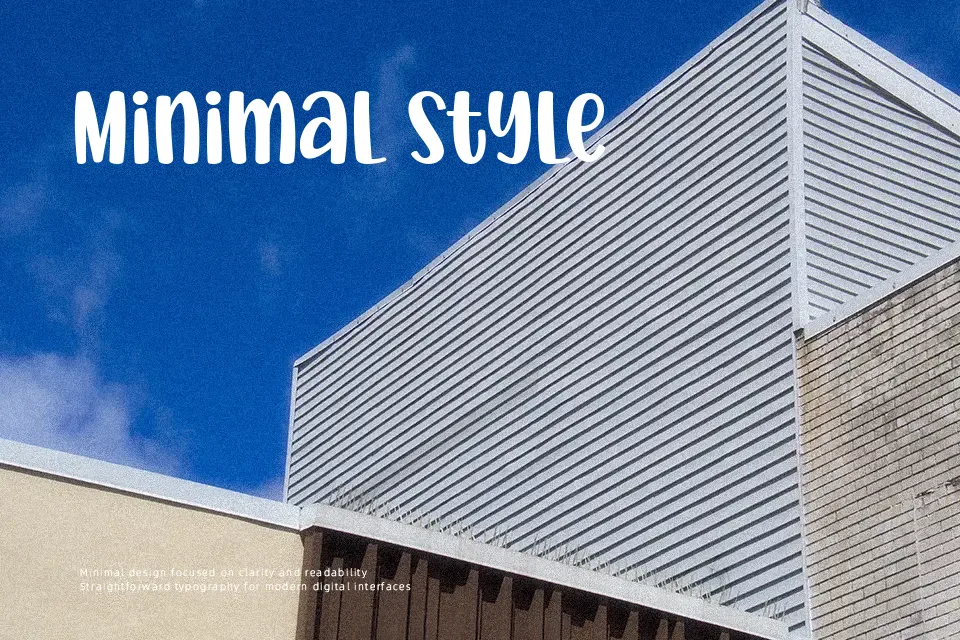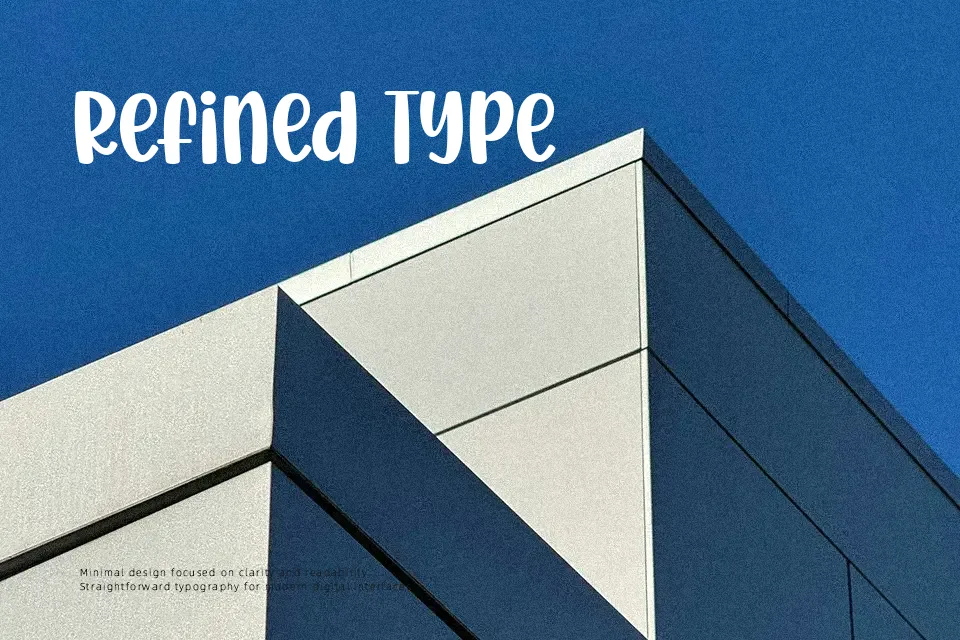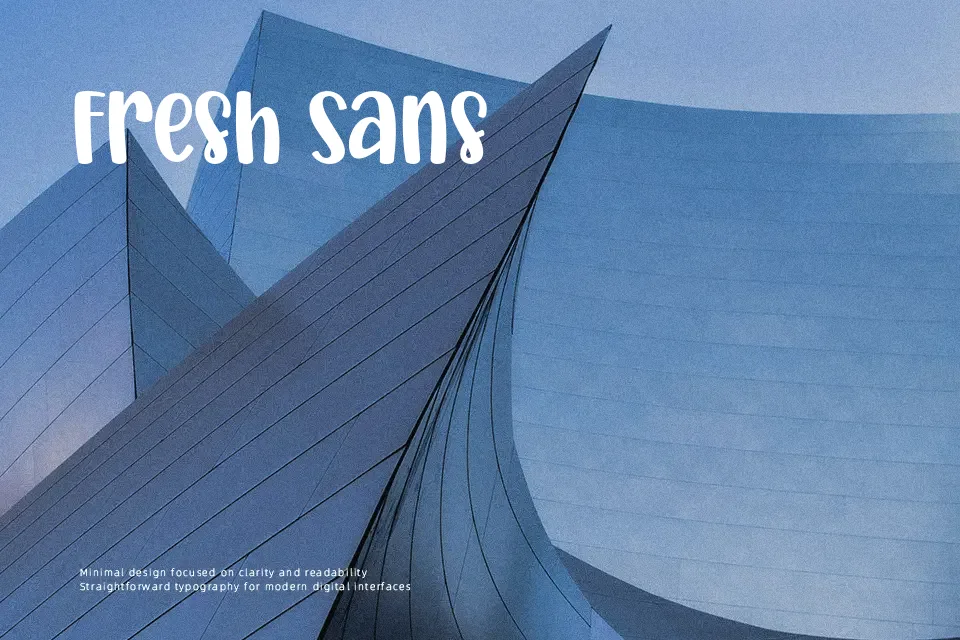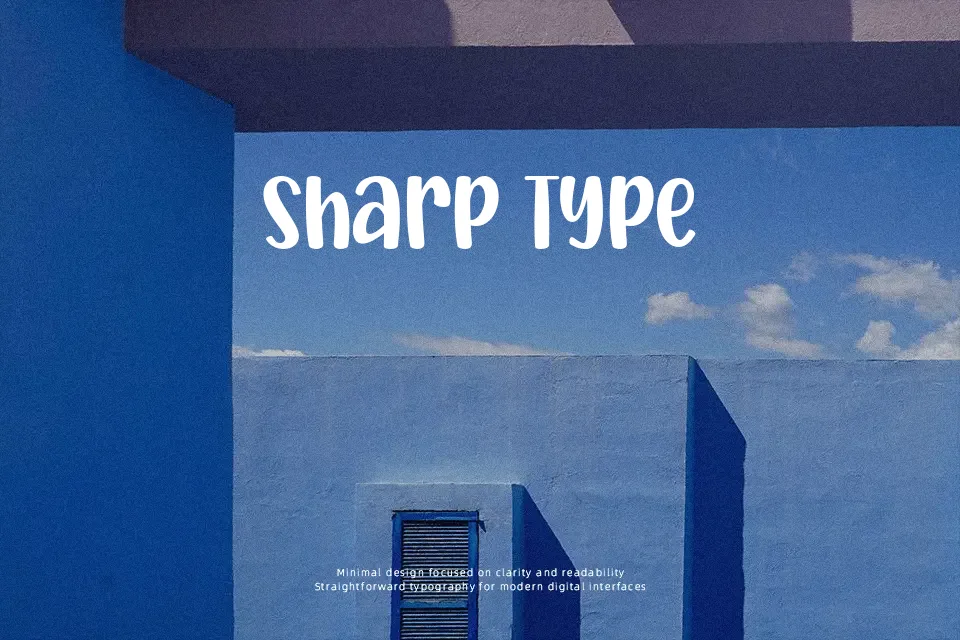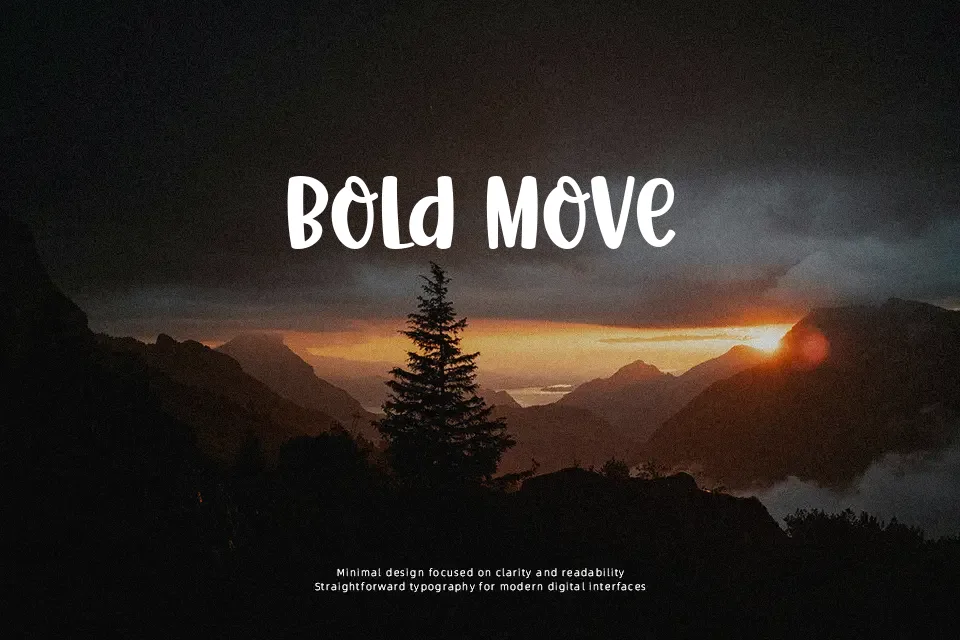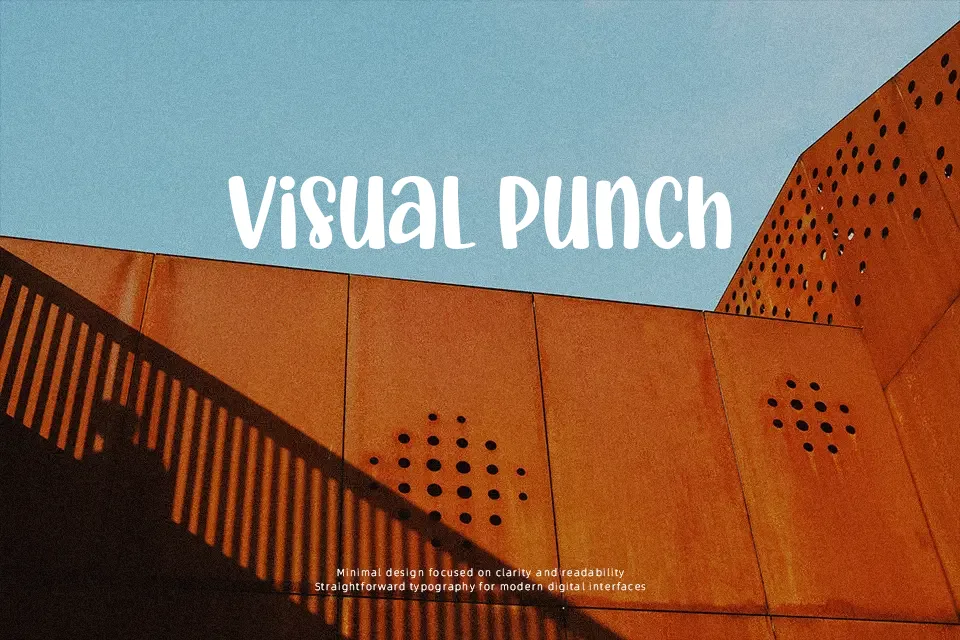
Beautiful Valentine Font
Designed by keithzo
Beautiful Valentine leans into bold, rounded shapes and a cartoon-like structure, with generous curves that give each glyph a soft, bubbly presence. Strokes appear fairly even in weight, and the spacing is moderately tight, which helps headlines feel cohesive and compact rather than airy. Visually it reads as a decorative, casual script-inspired display, more cute than formal, so it works nicely on Valentine’s Day cards, gift tags, seasonal packaging, or playful logo marks aimed at a romantic audience. However, the busy forms and decorative feeling make it harder to read in long paragraphs or at very small sizes. It shines in short phrases and hero text, but is less convincing when the design requires strict professionalism or extensive body copy.
Valentine’s Day greeting cards
Romantic social media posts and banners
Seasonal love-themed posters and flyers
Long paragraph text or dense copy
Formal corporate reports and business documents
Very small captions or UI text
Perfect for logo, packaging, and poster, with a cute and decorative style.